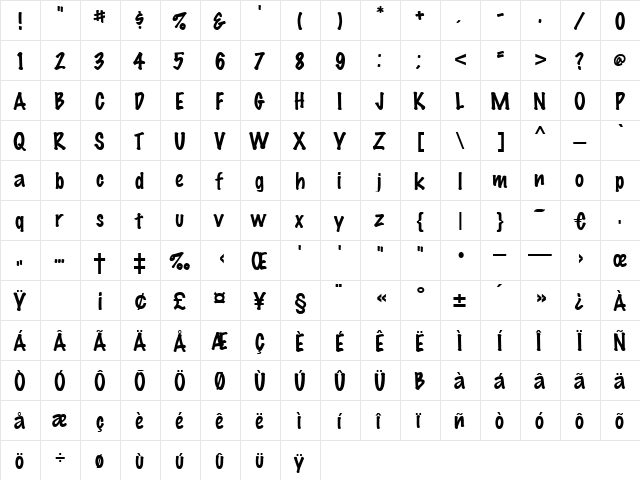
Antares Regular Font Preview
Antares Regular
Design Context for Antares Typeface
Antares is a composed and adaptable typeface that performs quietly and consistently across a wide range of design contexts.